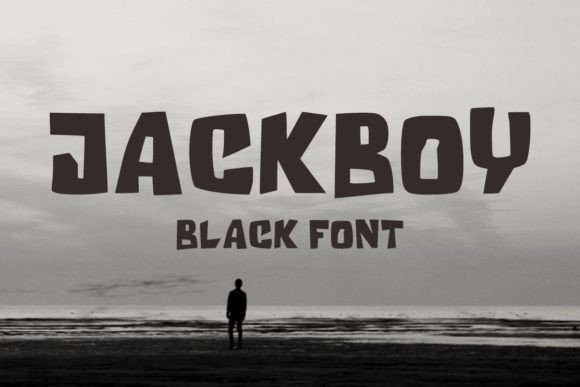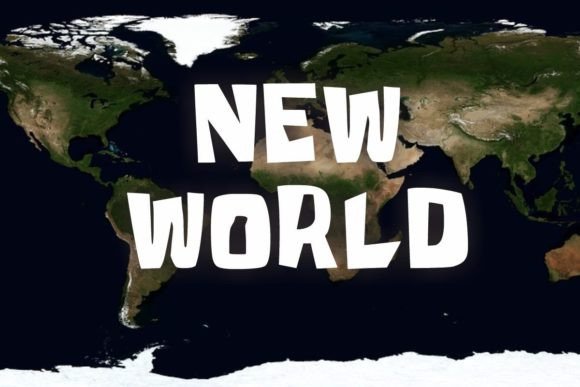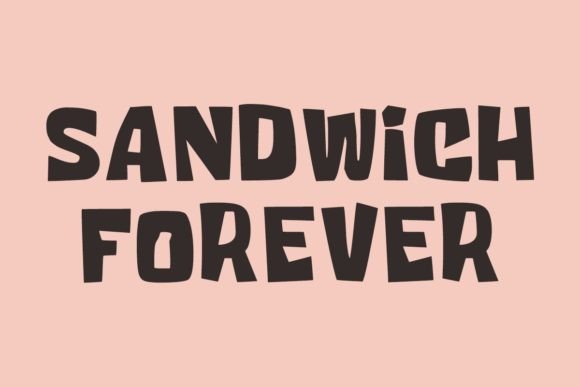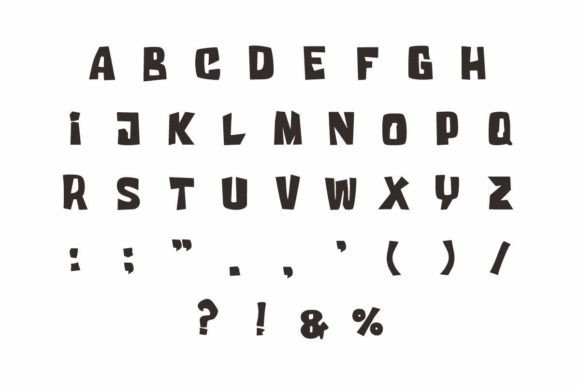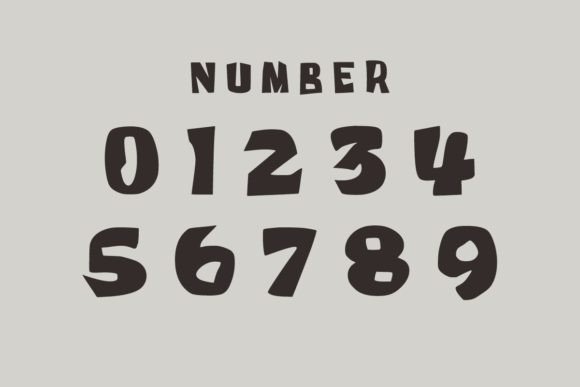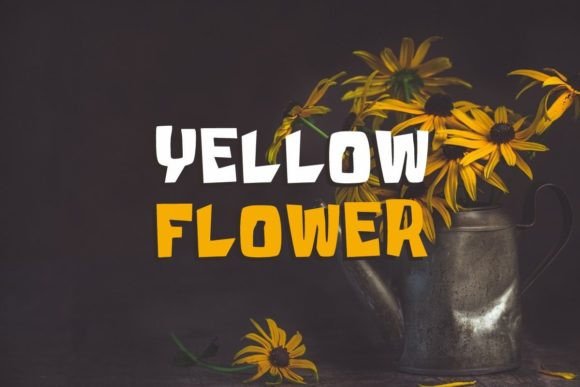
Introduction to Jackboy Font
Jackboy is a classic font, bold, easy-to-read display font that conveys impeccable friendliness.
Whether youโ€™re using it for crafts, digital design, presentations, or greeting cards, this font has the potential to become your favorite go-to font, no matter the occasion .
Key Features of Jackboy Font